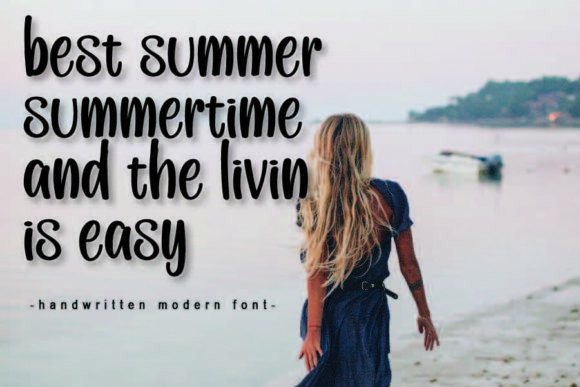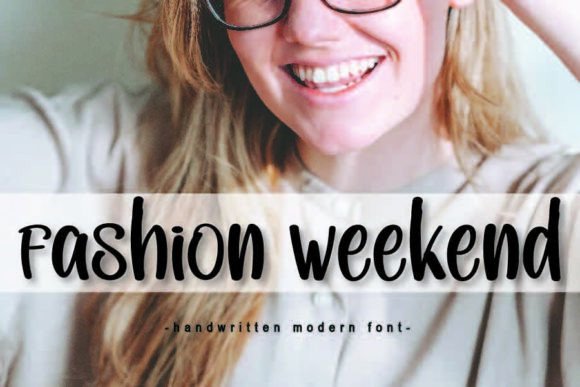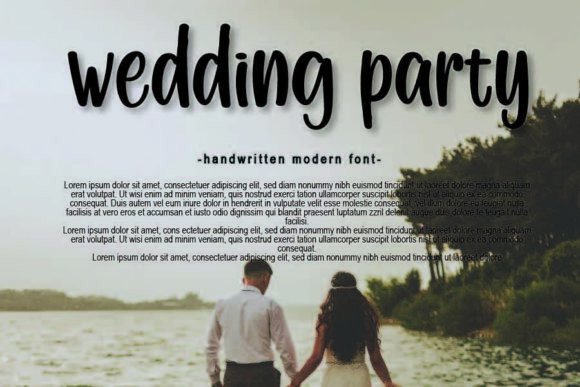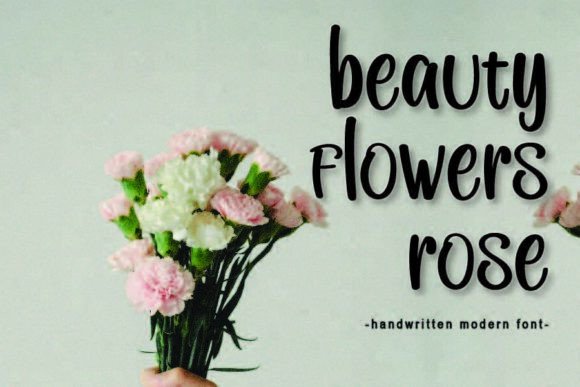
The Beauty of Handwritten Fonts: Elevate Your Designs with Elegance
In the world of typography, handwritten fonts have always held a special place. They bring a touch of elegance, warmth, and personality to any design. Among the numerous handwritten fonts available, one stands out for its exceptional beauty and modern appeal: the Handwritten font. This stunning font is perfect for designers and crafters looking to add a sophisticated touch to their projects.
What Makes Handwritten Font So Special?
Handwritten is an elegant font that looks beautiful and leaves a modern impression. Its unique charm lies in its fluid, cursive strokes that seem to dance across the page. This beautiful font looks great on various applications, including:
- Wedding invitations: Add a touch of romance and sophistication to your wedding stationery.
- Thank you or business cards: Make a lasting impression with a elegant and professional design.
- Logos: Create a memorable brand identity with a unique and stylish logo.
- Products: Elevate your product design with a beautiful and modern typography.
- Quotes: Add a touch of elegance to your inspirational quotes and sayings.
- Greeting cards: Create stunning greeting cards for special occasions.
- Advertisements: Stand out from the crowd with a beautiful and eye-catching ad design.
The Benefits of Using Handwritten Fonts
Handwritten fonts, like the Handwritten font, offer numerous benefits for designers and crafters. Some of the advantages include:
- Emotional Connection: Handwritten fonts evoke emotions and create a personal connection with the reader.
- Uniqueness: A handwritten font can help you stand out from the crowd and differentiate your design.
- Flexibility: Handwritten fonts can be used in various design applications, from digital to print.
- Elegance: A well-designed handwritten font can add a touch of sophistication and elegance to your design.
Tips for Using Handwritten Fonts Effectively
To get the most out of the Handwritten font, follow these tips:
- Pair with simple fonts: Combine the Handwritten font with simple, clean fonts to create a beautiful contrast.
- Use for headlines and titles: Handwritten fonts are perfect for headlines and titles, adding a touch of elegance and sophistication.
- Experiment with colors: Try different colors and textures to add depth and interest to your design.
- Pay attention to spacing: Make sure to adjust the spacing and kerning to ensure the text is easy to read.
| Font Name | Handwritten Font |
| Author | hl_studio |
The Handwritten font is a beautiful and elegant addition to any design project. Its unique charm and modern appeal make it perfect for designers and crafters looking to elevate their designs. With its versatility and flexibility, this font can be used in various applications, from wedding invitations to advertisements. By following the tips outlined above, you can effectively use the Handwritten font to create stunning designs that leave a lasting impression.